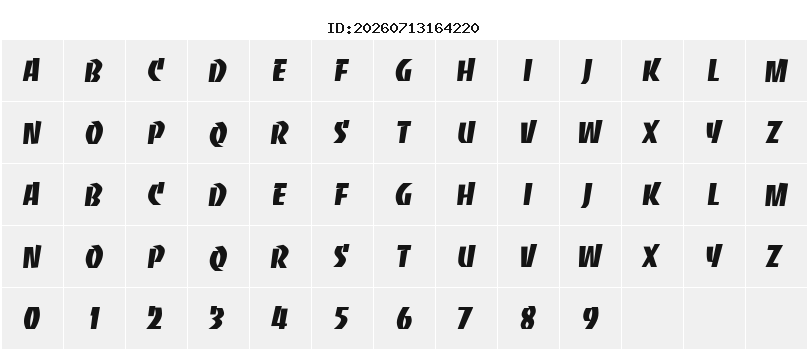
Bandit DB Preview
• Font Name: Bandit DB
• Full Font Name: Bandit-Regular DB
About Bandit DB.ttf
Bandit DB.ttf is a modern, elegant sans-serif font designed for ultimate readability and visual harmony. Perfect for branding, headlines, web design, and print materials.